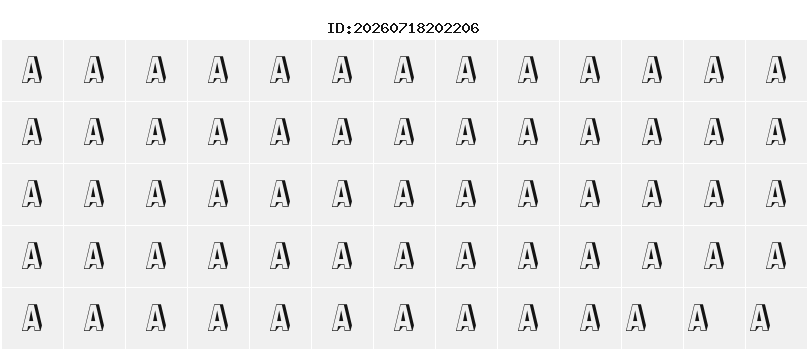
Crayon Social Art.ttf is a modern, elegant sans-serif font designed for ultimate readability and visual harmony. Perfect for branding, headlines, web design, and print materials.